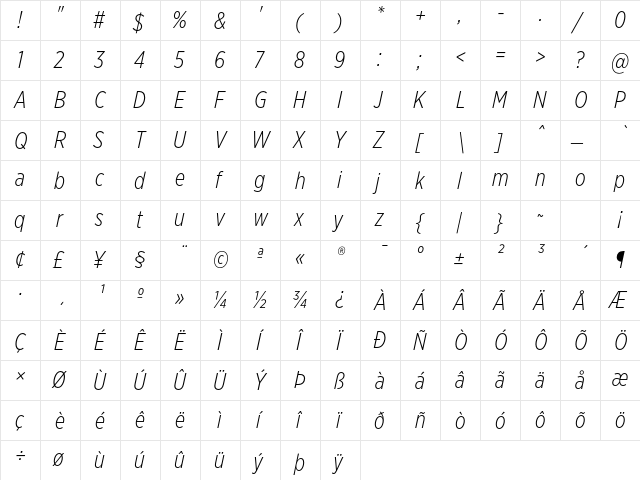
Gotham XNarrow Light Italic Font Preview
| Foundry | Hoefler & Frere-Jones |
| Designer | Hoefler & Frere-Jones |
Design Context for Gotham XNarrow Typeface
Gotham XNarrow is a composed and adaptable typeface that performs quietly and consistently across a wide range of design contexts. The slanted form adds forward momentum and visual energy. The delicate stroke weight brings airiness and refinement to layouts. Its narrow stance lets it pack a punch even in space-constrained designs.
Pro Tip: Try Gotham XNarrow for annotation and caption copy alongside an upright companion — the contrast in angle creates a dynamic but ordered typographic system.